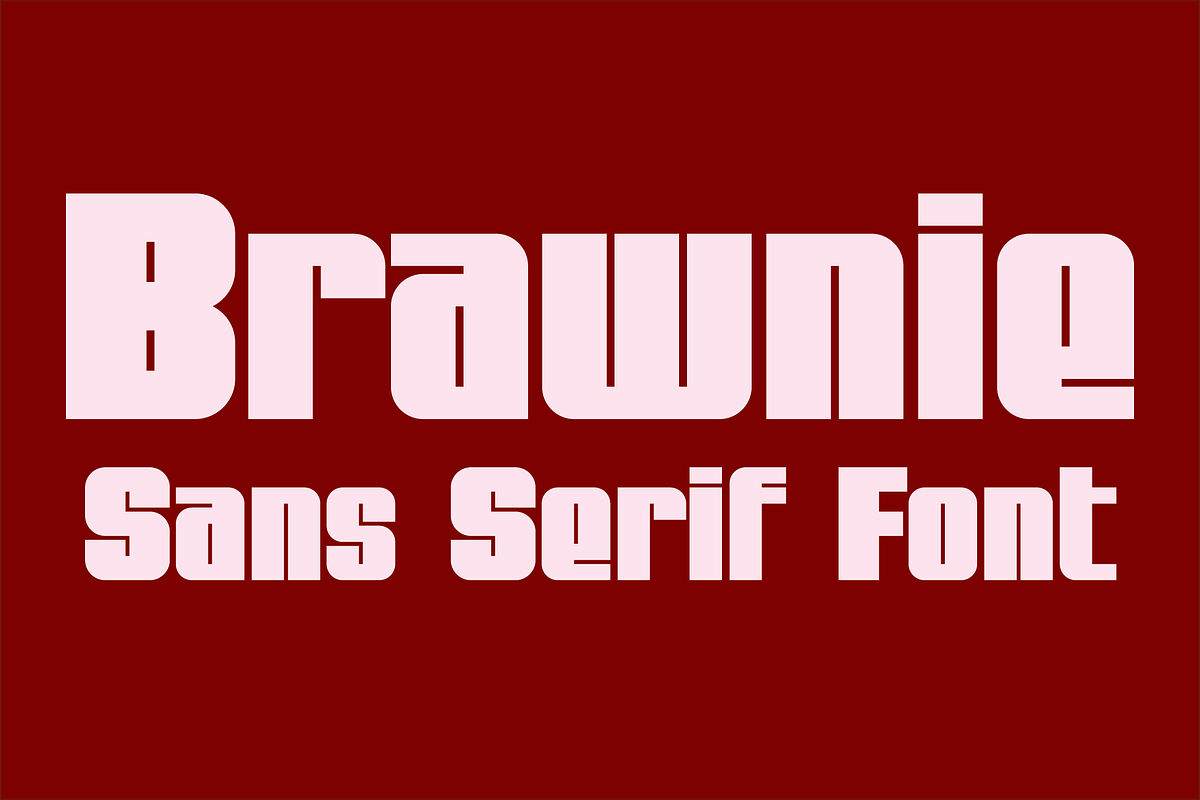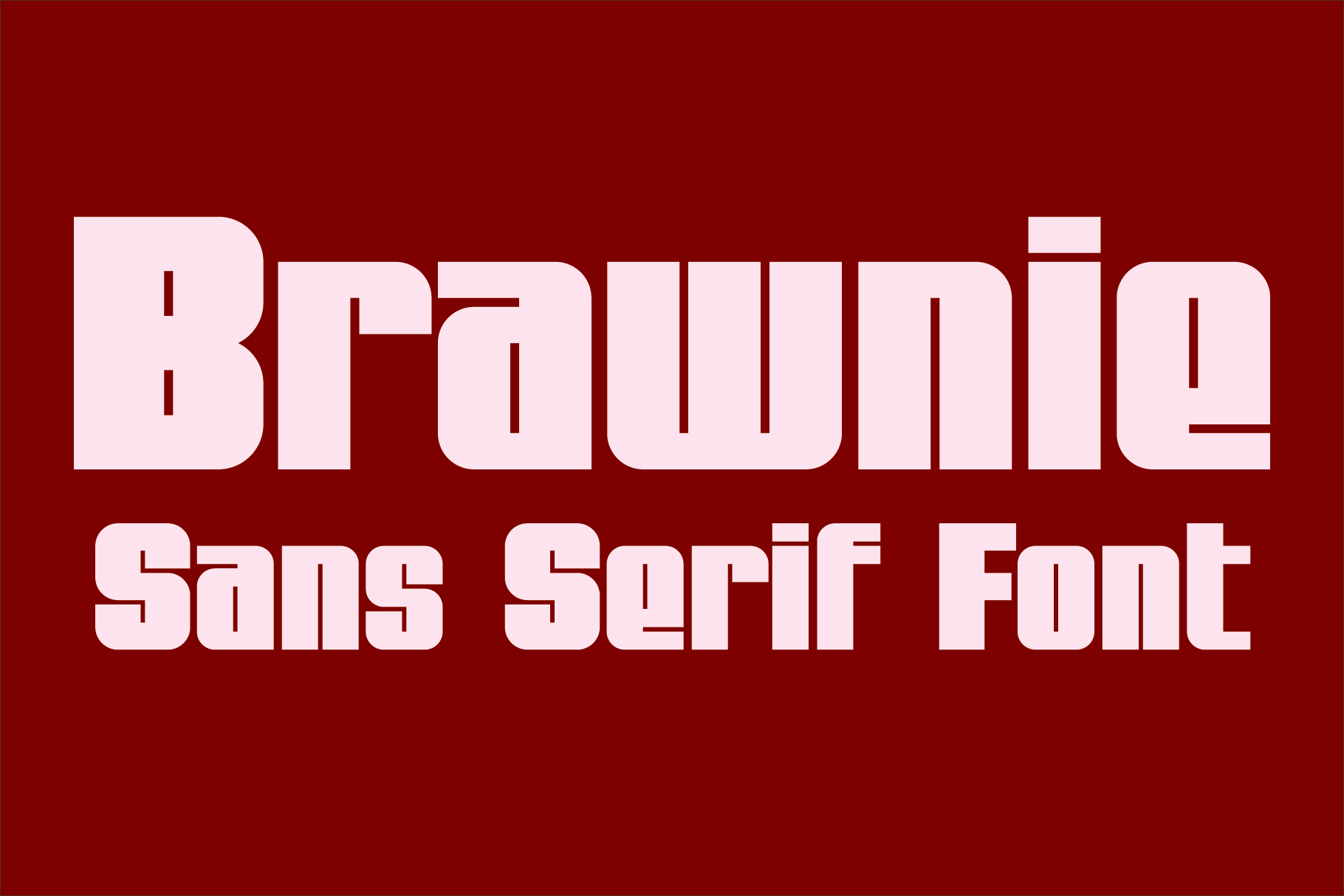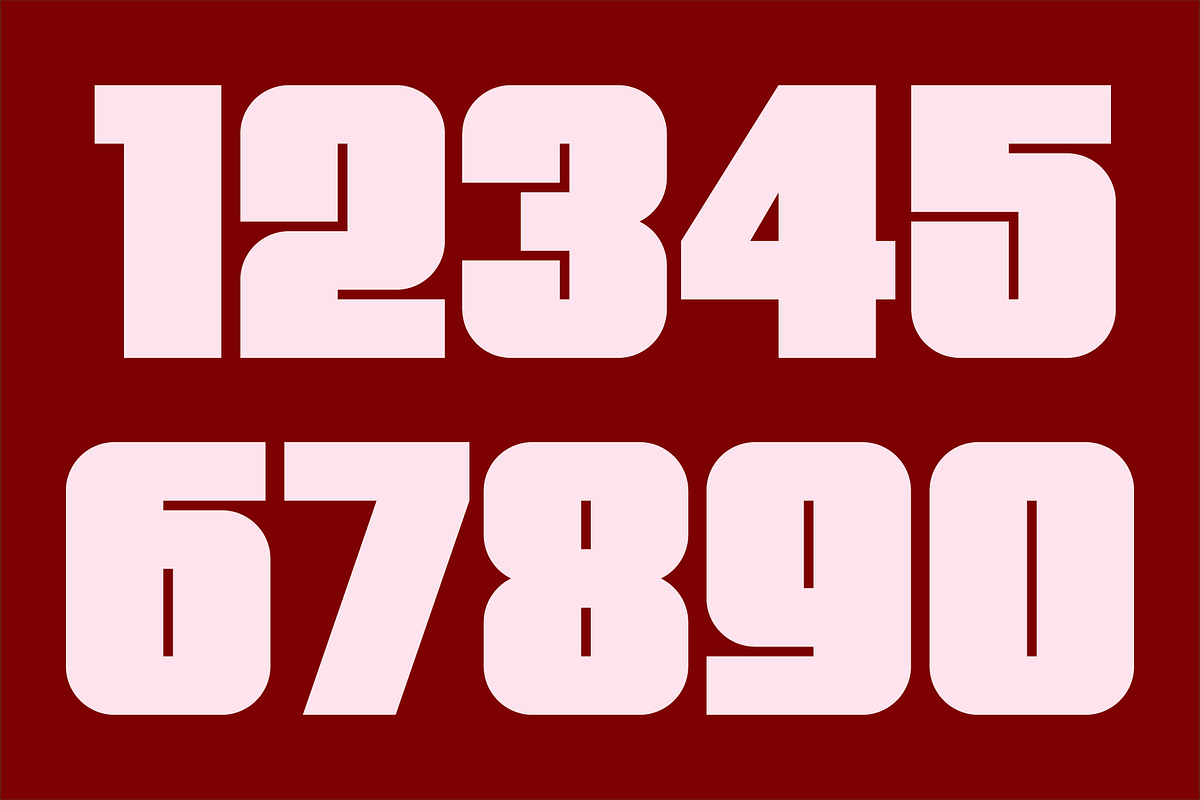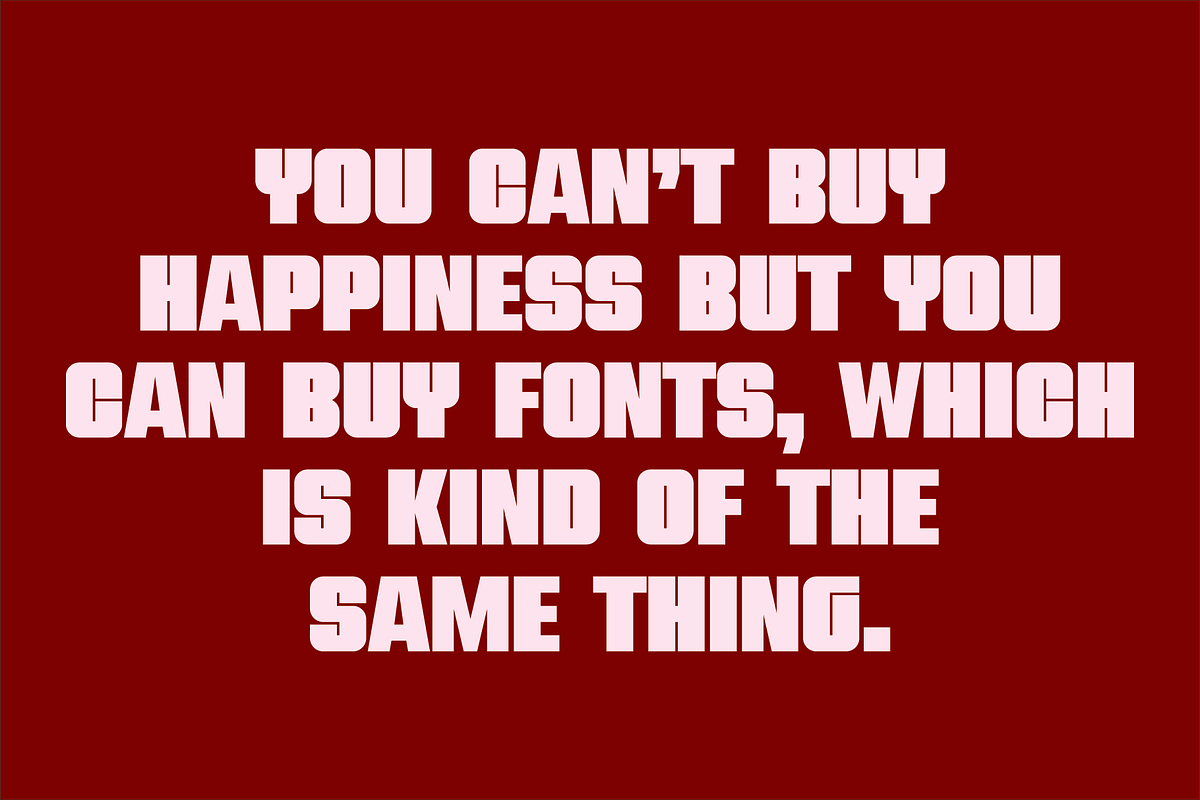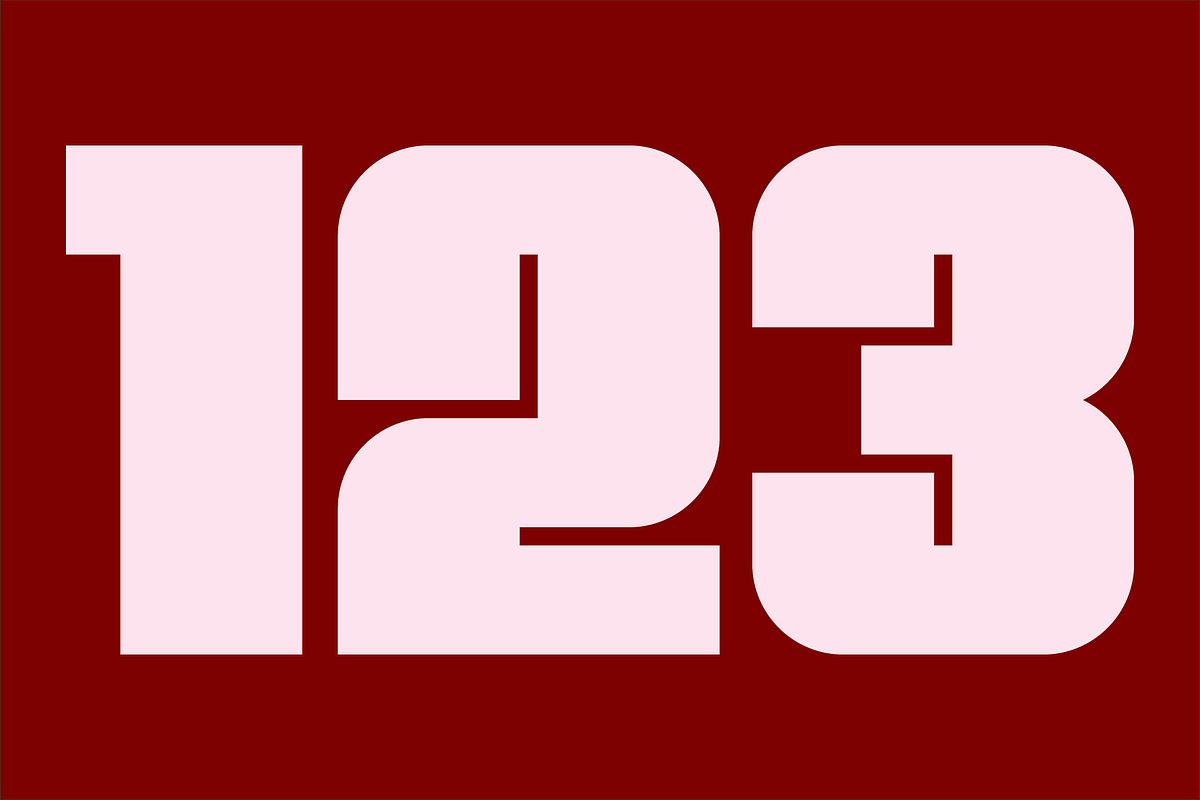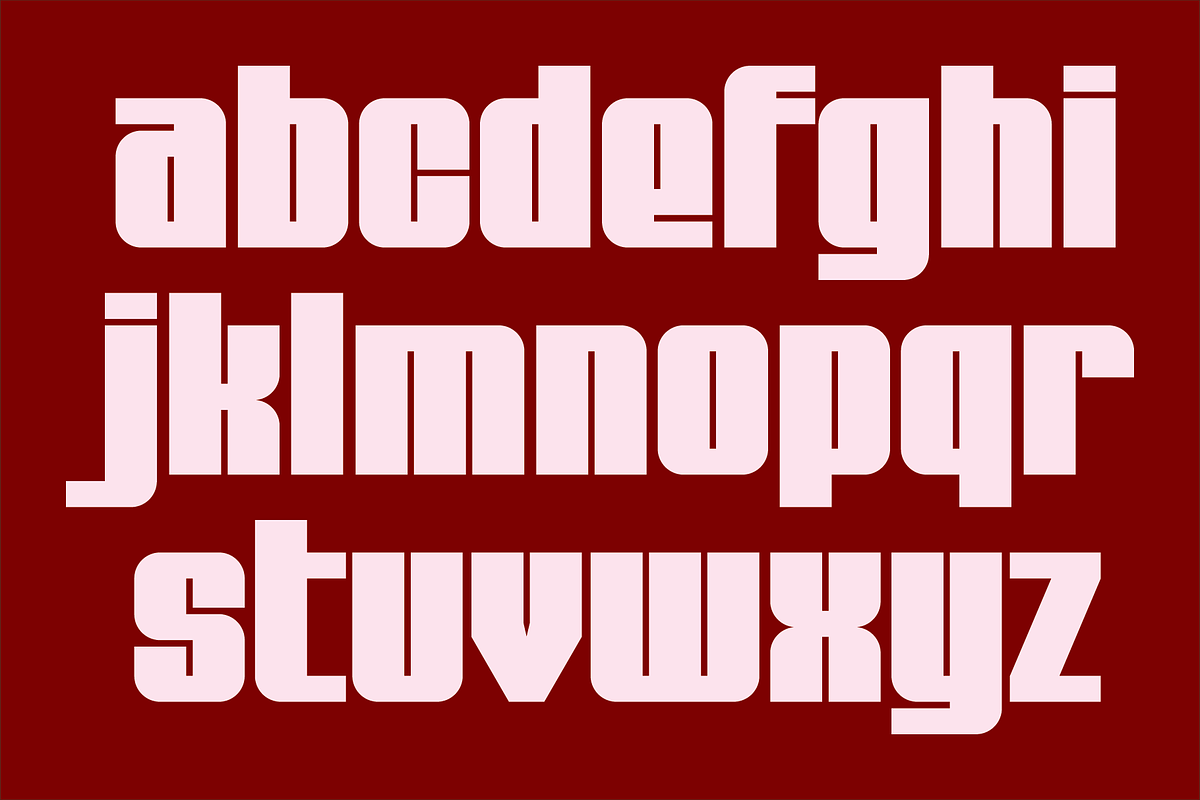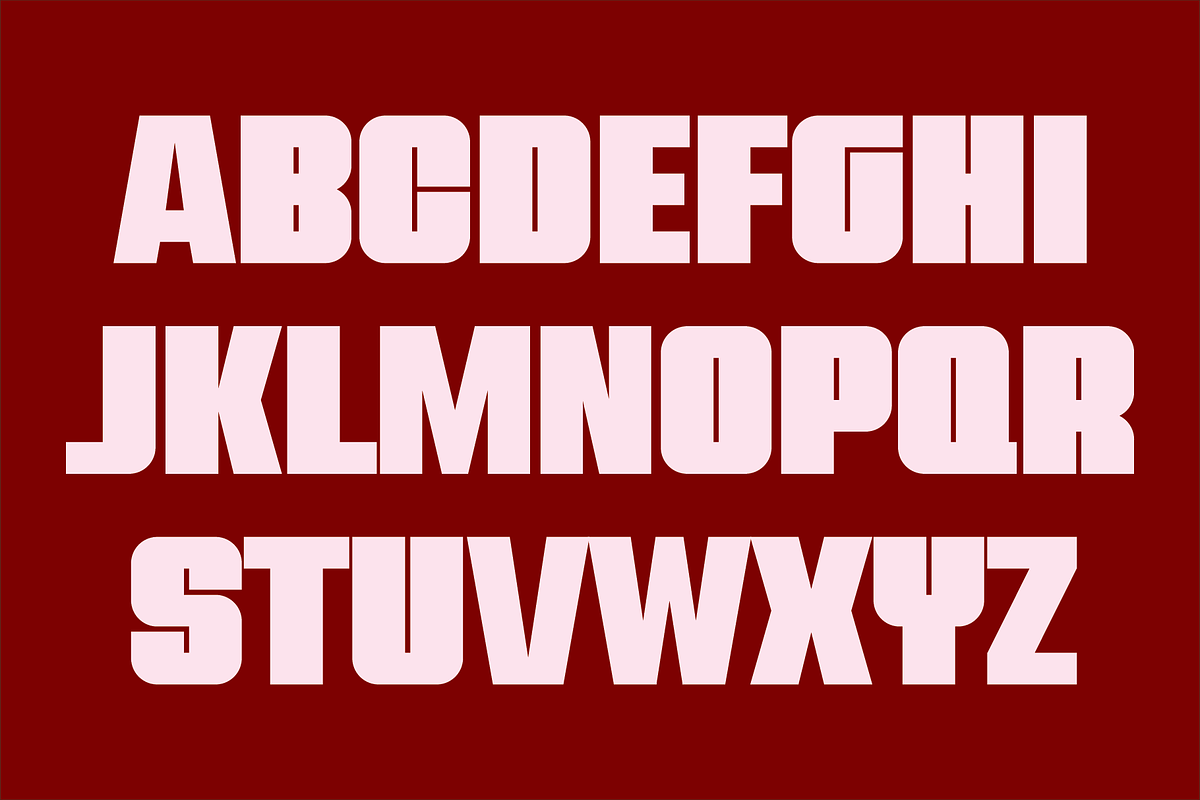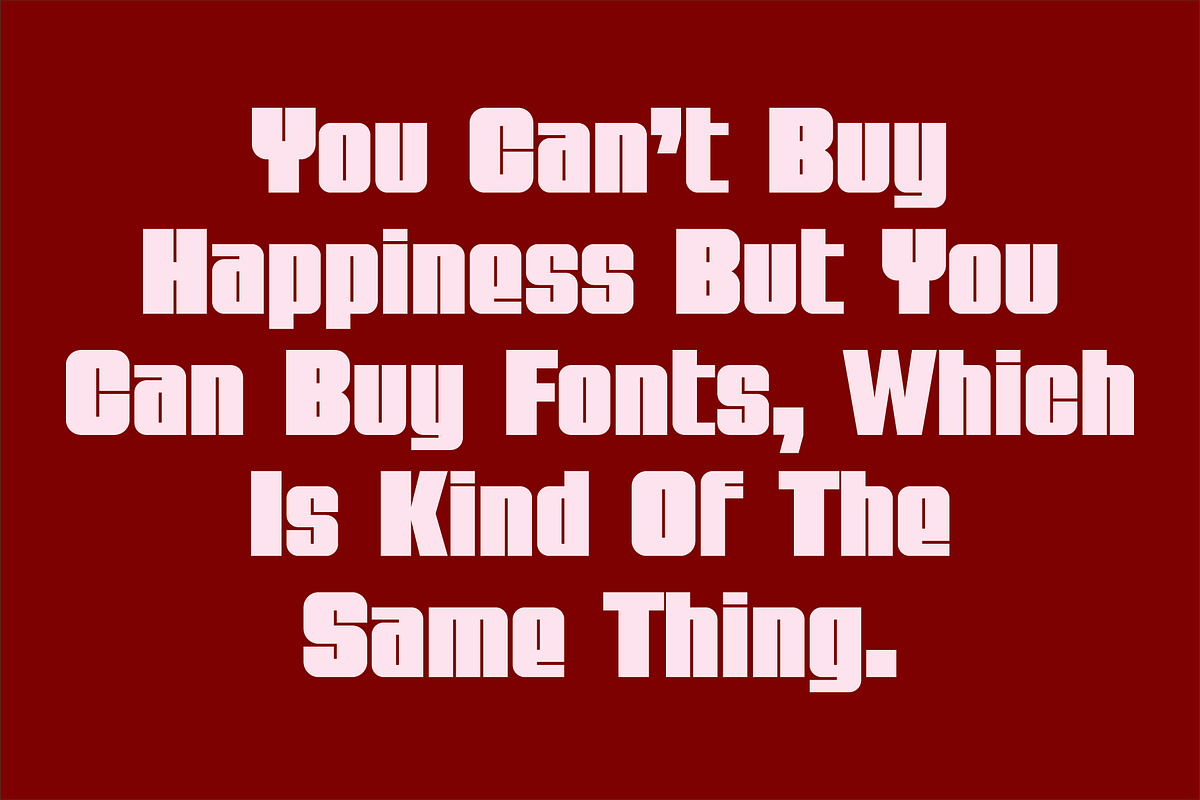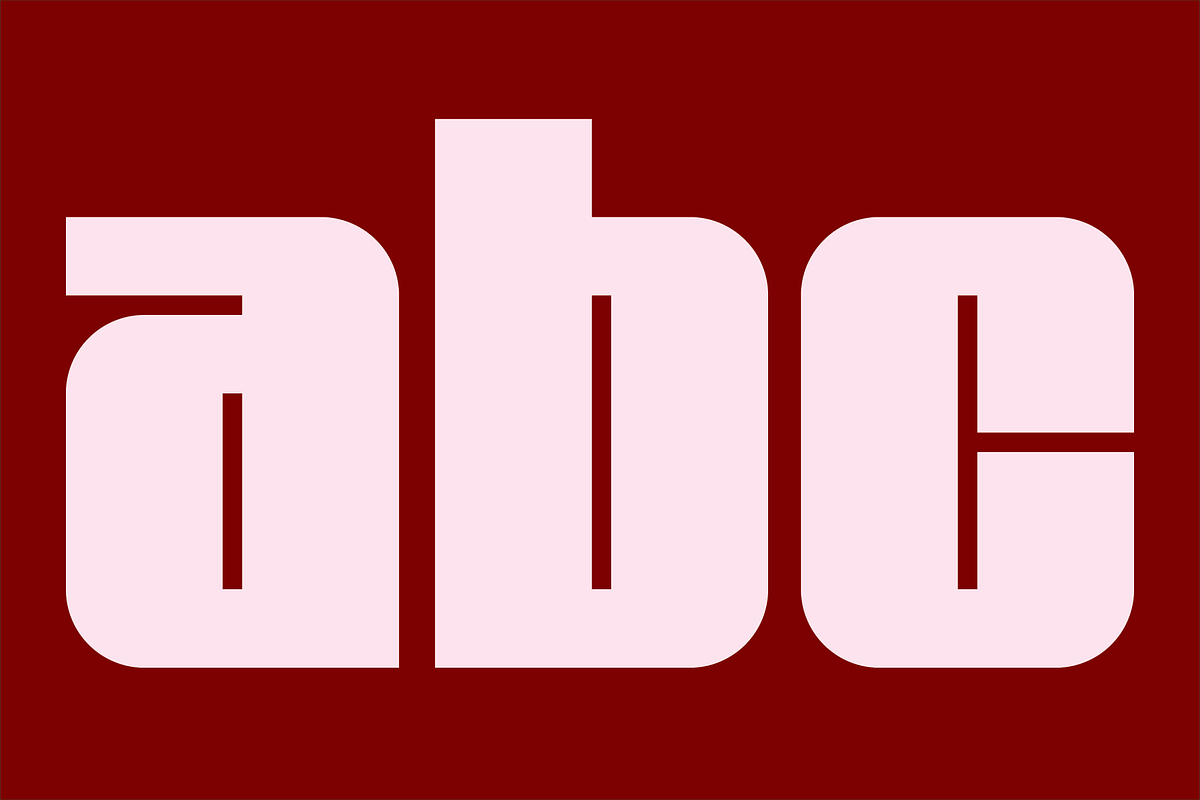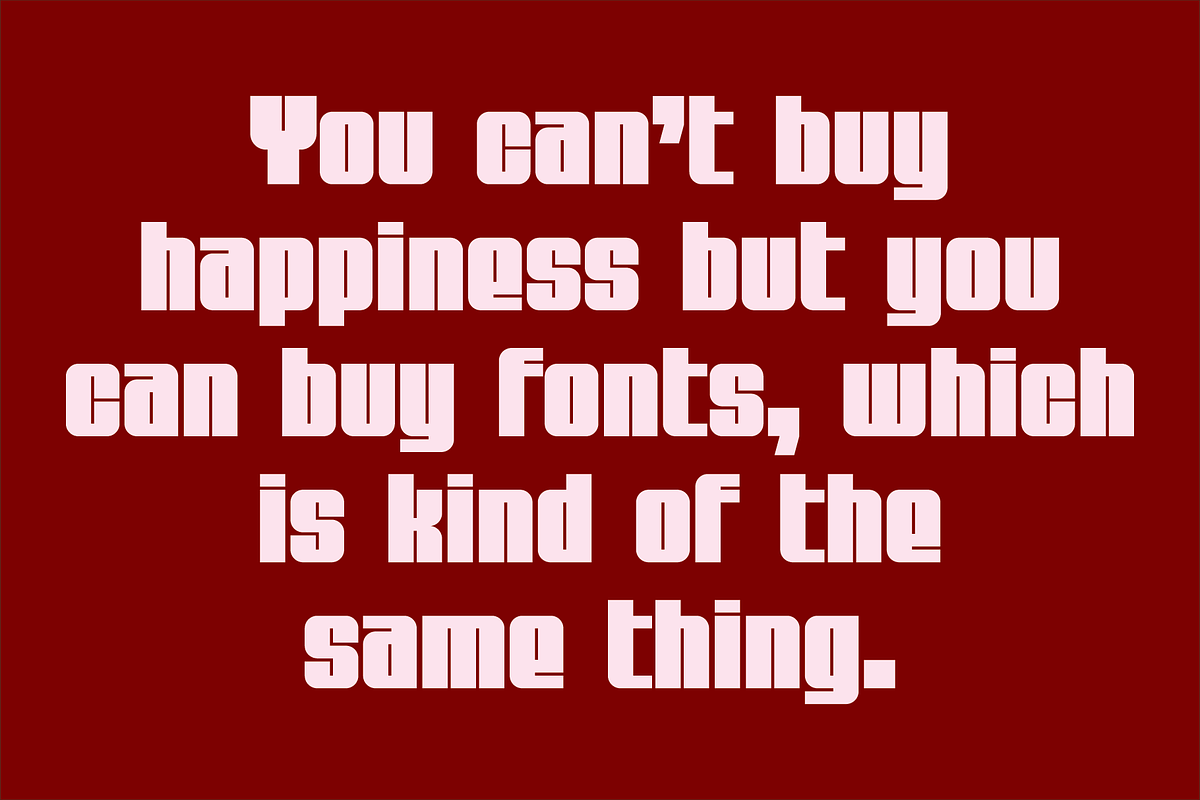
Brawnie - Sans Serif Font
Brawnie is a very bold, contemporary, sans serif font. It is ideal for headlines, titles, branding, and small blocks of text.